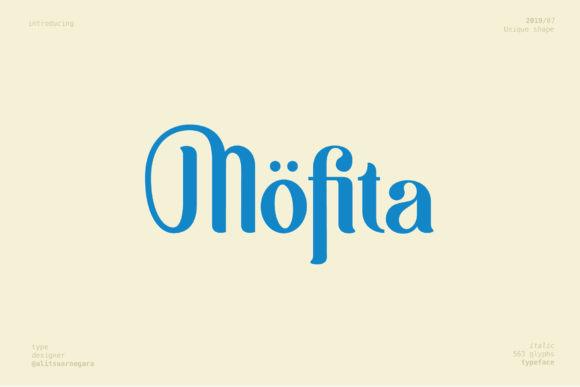
Introducing Möfita Font – A Typographic Masterpiece That Will Elevate Your Designs
In a realm of mundane fonts, Möfita Font emerges as a radiant beacon of creativity, an artistic tour de force that will transform your design projects into masterpieces. Inspired by the grandeur of vintage aesthetics, Möfita Font exudes an aura of sophistication and timeless elegance.
Unleash the boundless possibilities of Möfita Font, a display font that captivates with its intricate details and captivating curves. Each glyph has been meticulously crafted by the skilled hands of Alit Design, resulting in a font that is both visually stunning and highly versatile.
With Möfita Font, your designs will transcend the ordinary and venture into the realm of the extraordinary. Whether you're crafting logos, branding materials, posters, or social media graphics, Möfita Font will elevate your creations to new heights of visual appeal.
Feel the power of Möfita Font as it infuses your designs with a sense of nostalgia and charm. Its vintage-inspired character will evoke a sense of longing for a bygone era, while its modern execution ensures that your designs remain relevant and captivating.
Möfita Font is not just a font; it's an experience. It's a journey through time, a celebration of the past, and a testament to the enduring power of great design. Discover the endless possibilities of Möfita Font and unlock the true potential of your creative vision.
The world of design awaits your transformation. Embrace Möfita Font today and embark on a journey of typographic excellence.